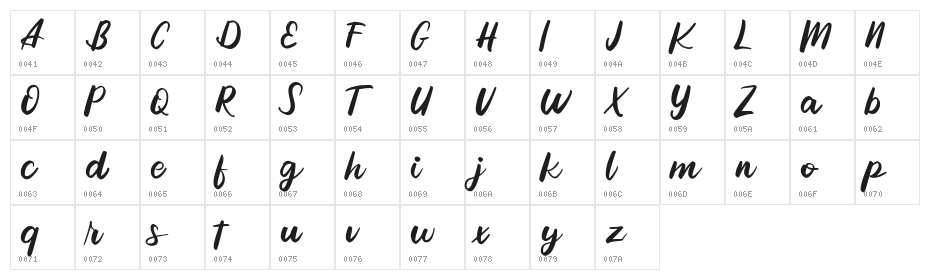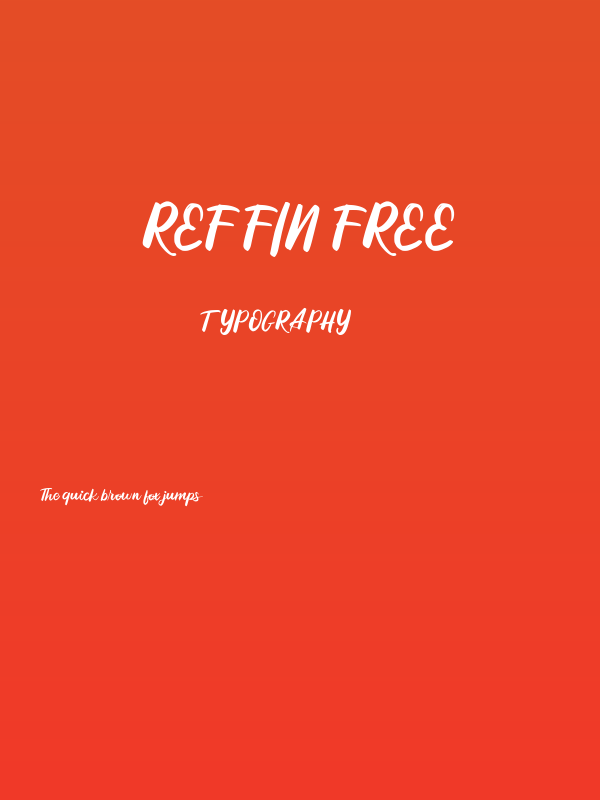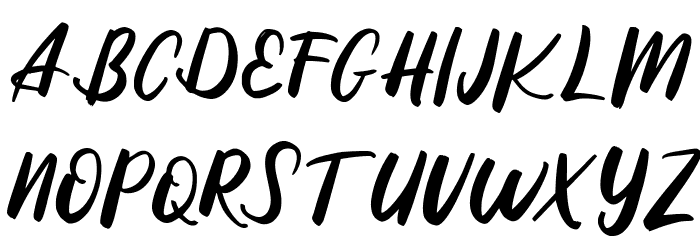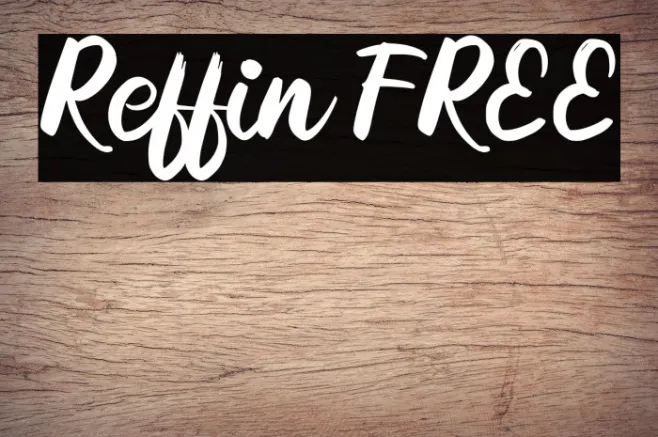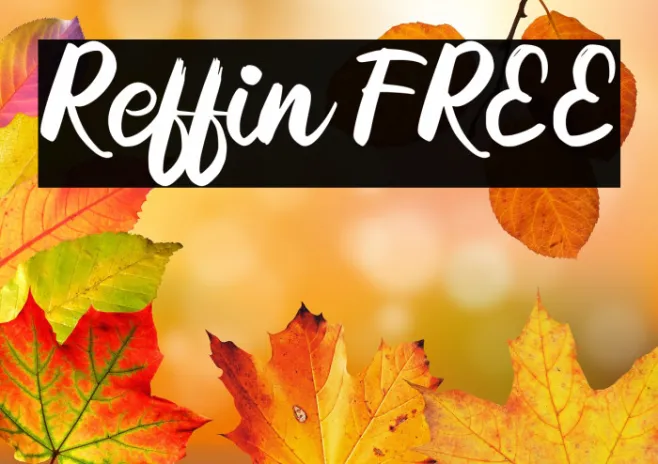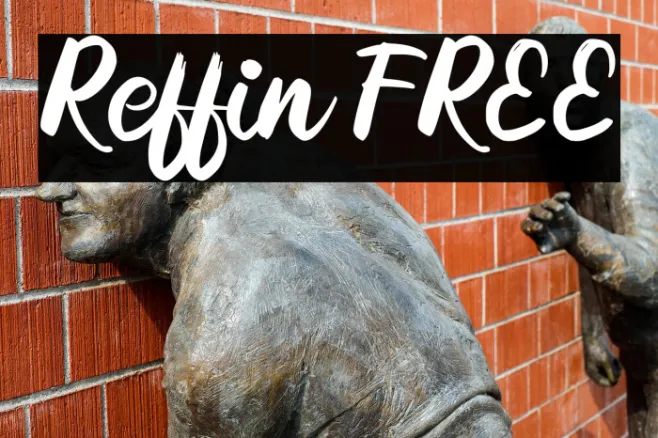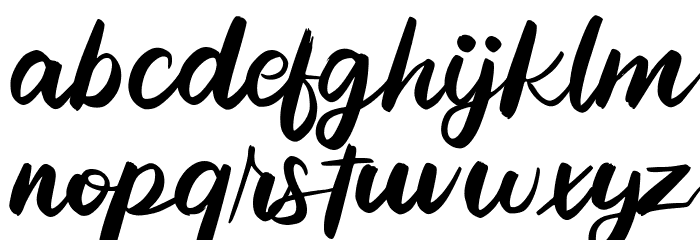
Reffin FREE Font
Reffin FREE Description
This font exudes a dynamic and energetic style, characterized by its bold and flowing script. The letters are crafted with a brush-like appearance, giving them a hand-painted feel that is both artistic and expressive. The uppercase and lowercase letters maintain a consistent style, with smooth curves and a slight slant that adds to the overall fluidity. The strokes vary in thickness, providing a medium contrast that enhances readability while maintaining a lively aesthetic. This font is perfect for projects that require a personal touch, such as invitations, branding, and creative designs.
| Use Case | Logos, Headlines, Creative designs |
| Proposed Projects | Ideal for invitations, branding, creative designs, and artistic projects. |